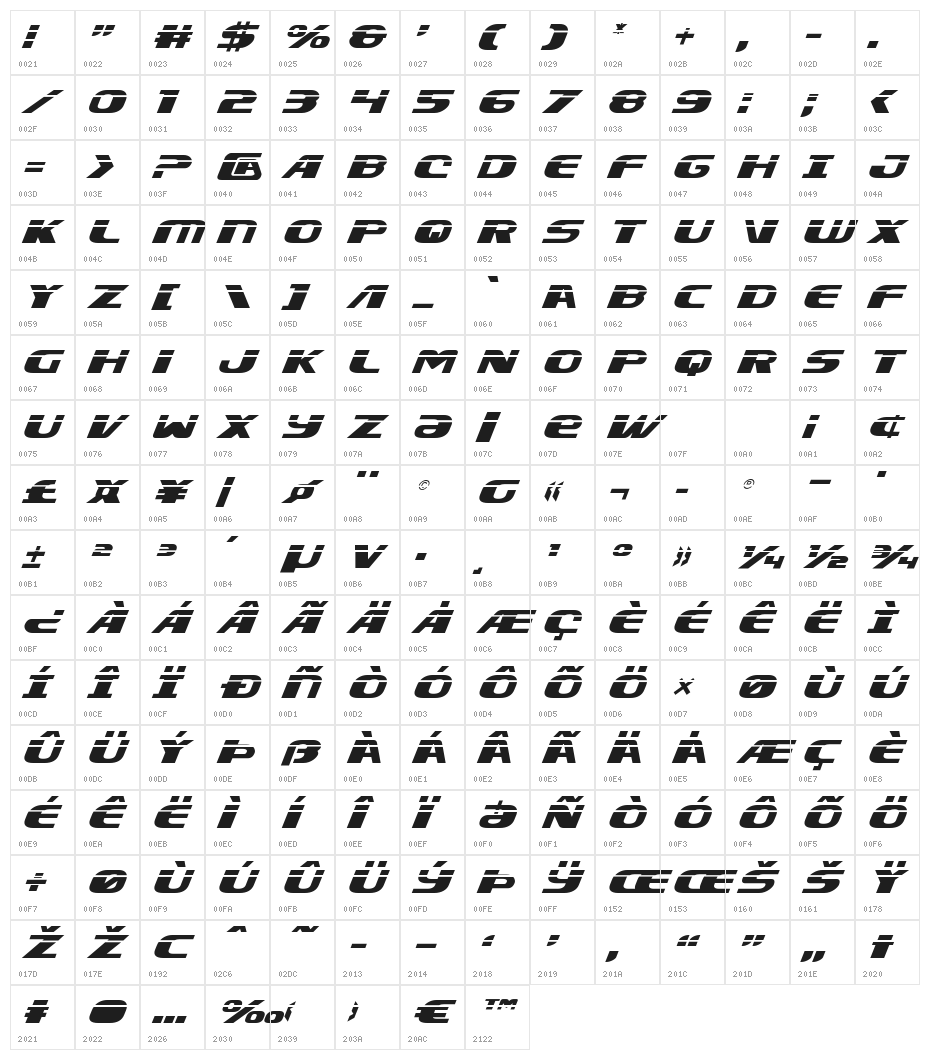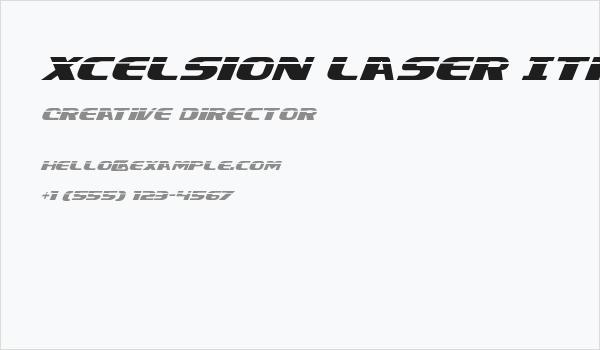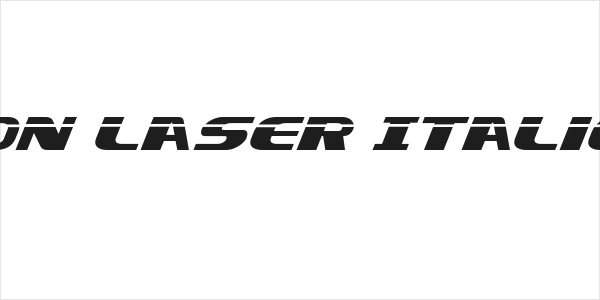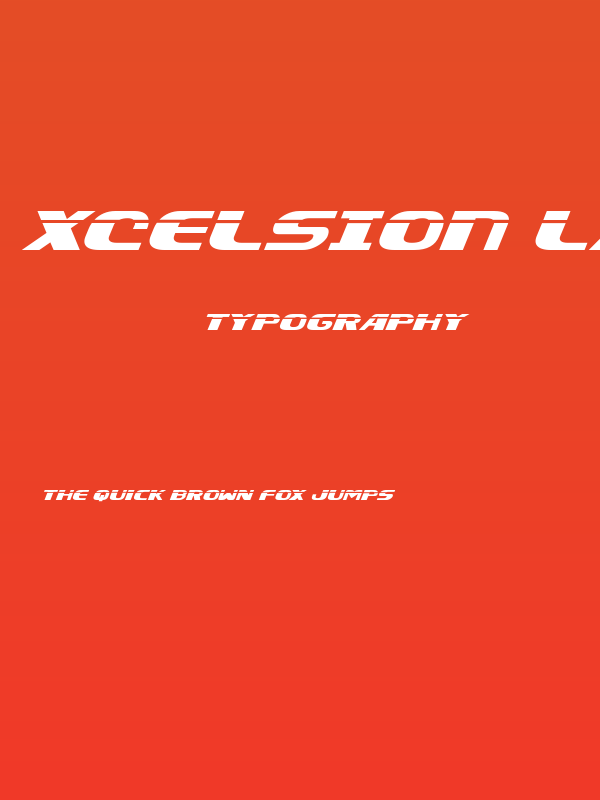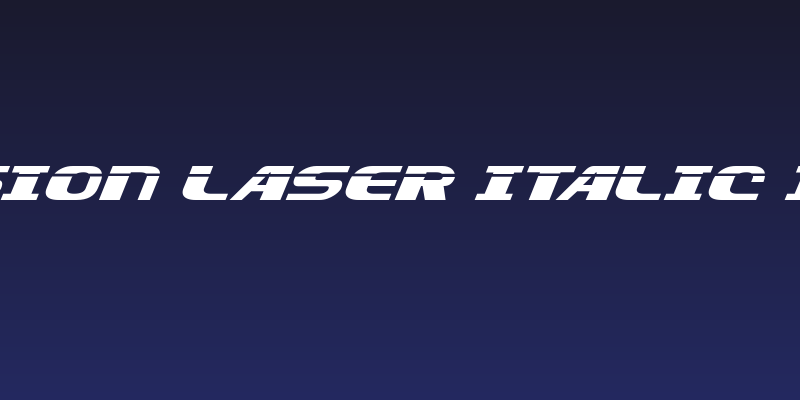
Xcelsion Laser Italic Italic Font
Xcelsion Laser Italic Italic Description
This font features a bold, italicized style with a futuristic and dynamic appearance. The characters are designed with sharp angles and a slanted orientation, giving a sense of motion and speed. The uppercase and lowercase letters maintain a consistent style, with a strong emphasis on horizontal lines and geometric shapes. The numbers and special characters follow the same design principles, ensuring uniformity across all glyphs. The font's unique style makes it stand out, suitable for projects that require a modern and edgy look.
| Proposed Projects | Ideal for sci-fi themed designs, technology branding, video game titles, and dynamic posters. |